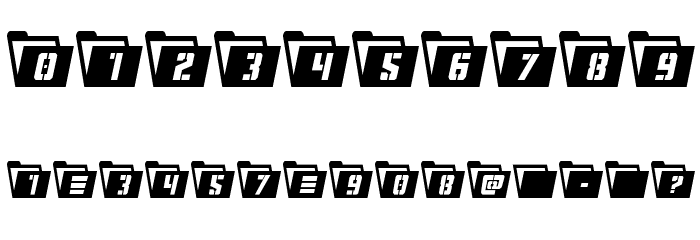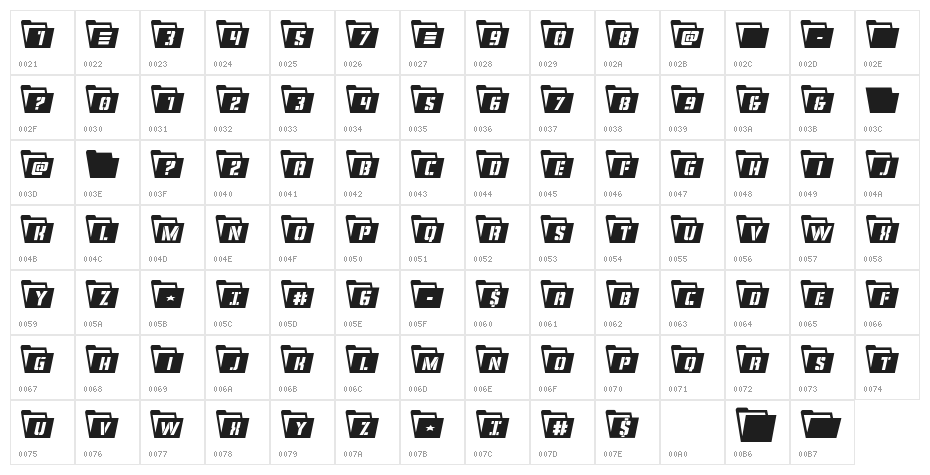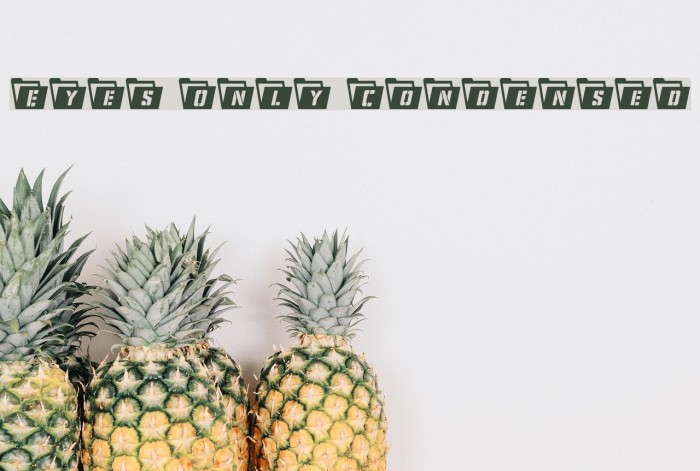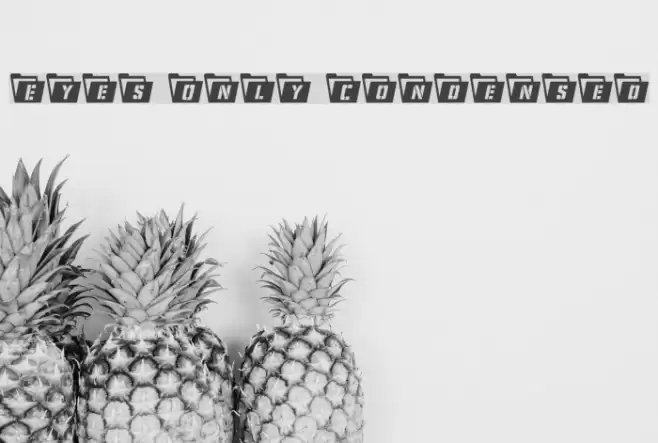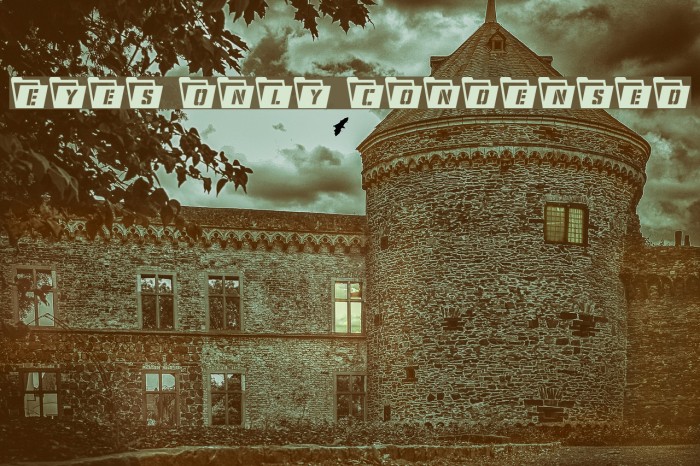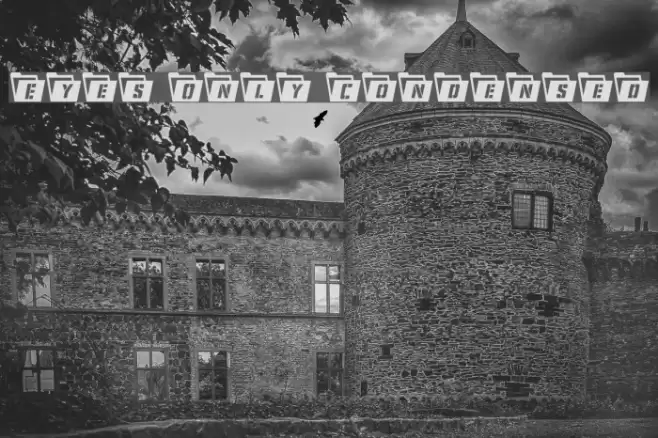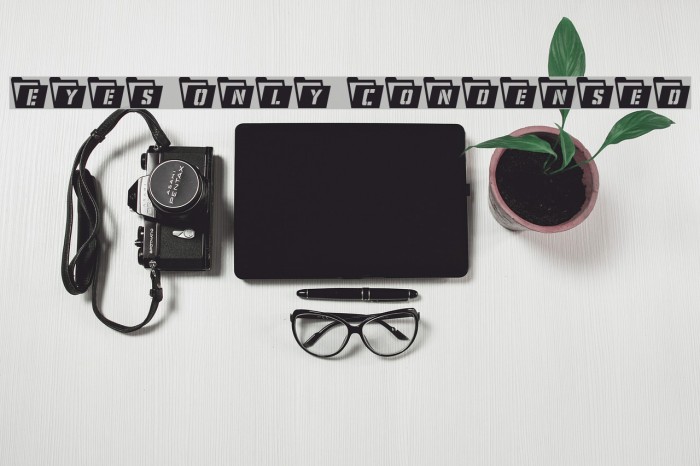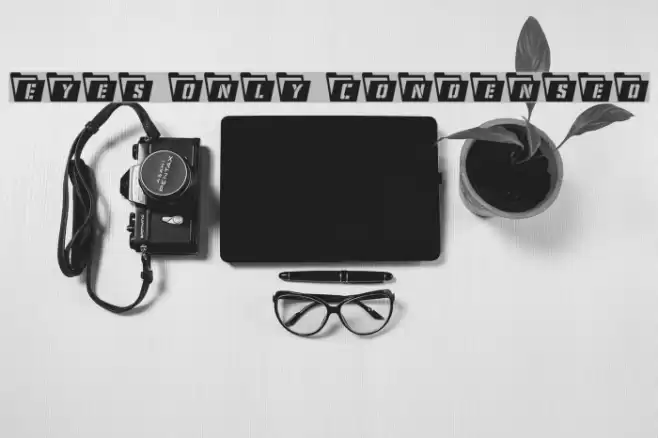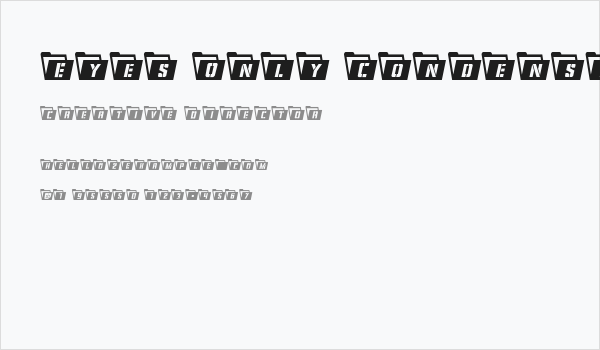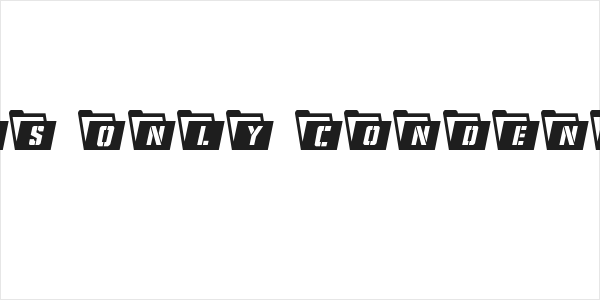
Eyes Only Condensed Font
Eyes Only Condensed Description
This font features a bold, condensed style with a unique, futuristic aesthetic. Each character is enclosed within a stylized folder-like shape, giving it a distinctive, tech-inspired look. The letters and numbers are sharply defined, with a consistent stroke width that maintains clarity and readability. The angular design elements contribute to a modern and edgy appearance, making it suitable for projects that require a strong visual impact. The font's geometric structure and uniformity across characters ensure a cohesive and striking presentation.
| Proposed Projects | Ideal for technology branding, sci-fi themed designs, video game titles, and modern digital interfaces. |